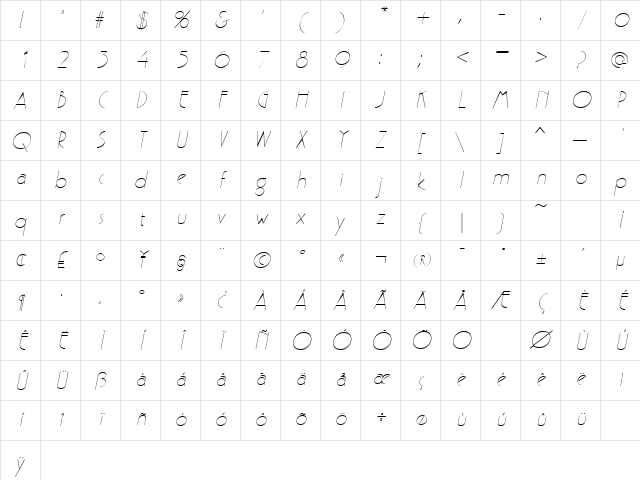
Pergamon Italic Free Font
Pergamon Italic
Design Context for Pergamon
Pergamon is a composed and adaptable typeface that performs quietly and consistently across a wide range of design contexts. The slanted form adds forward momentum and visual energy.
Pro Tip: Use Pergamon for emphasis, pull quotes, and subheadings where its slanted energy can add rhythm to the layout.